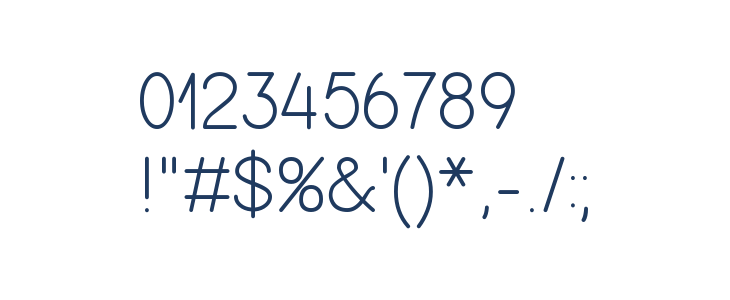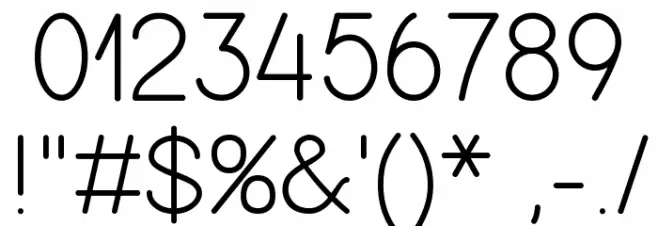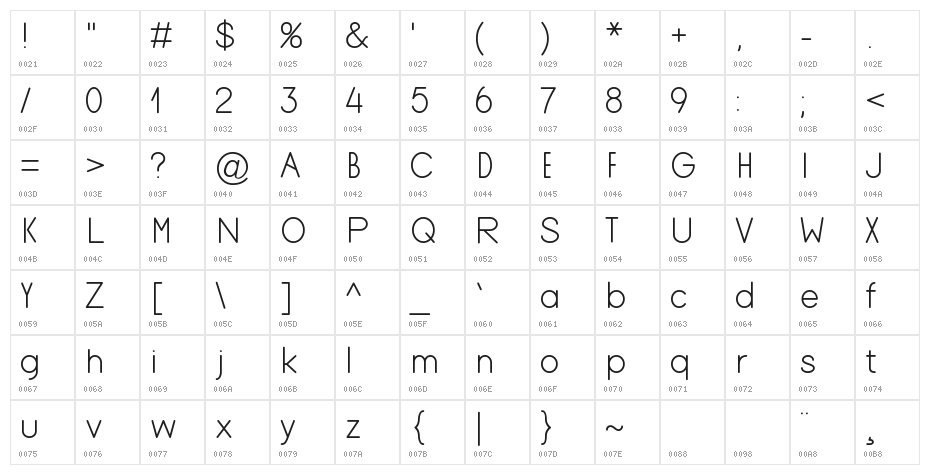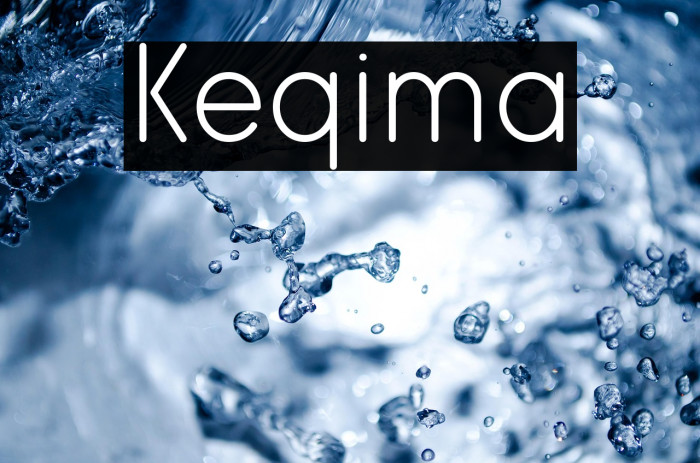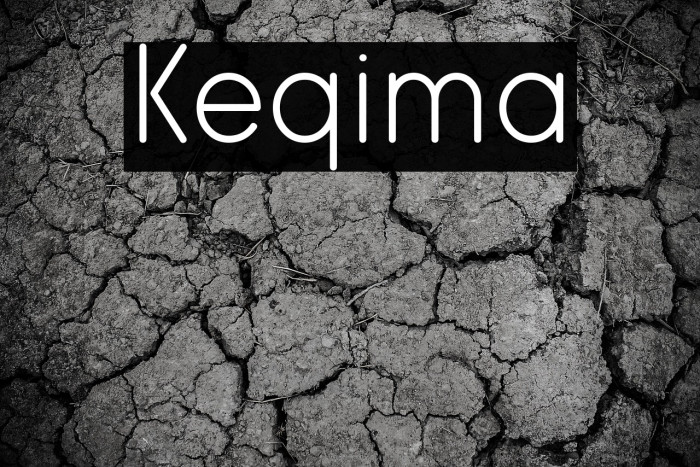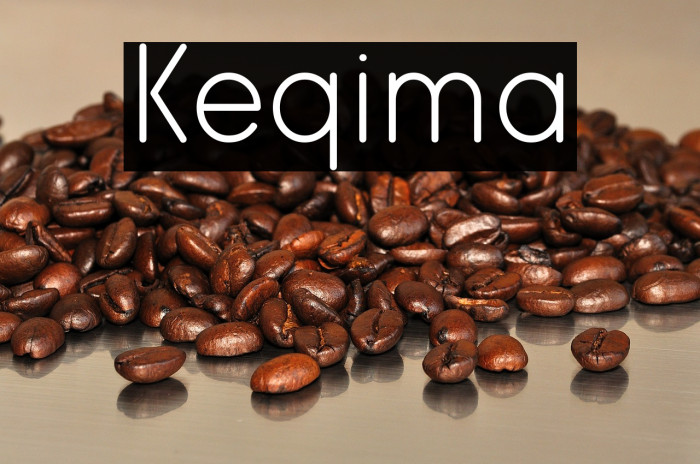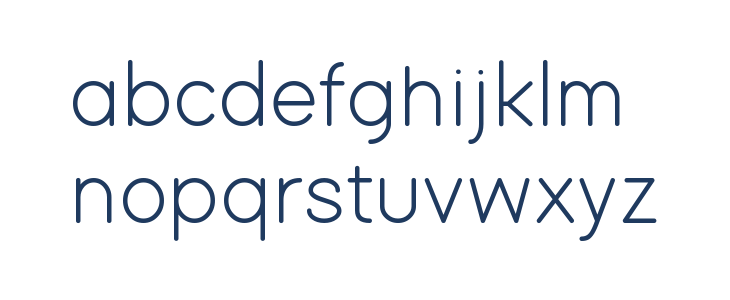
Keqima Font
Keqima Description
This font features a clean and modern sans-serif design with uniform stroke widths and rounded edges, giving it a friendly and approachable appearance. The characters are well-proportioned, with a consistent height and width that enhances readability. The uppercase letters are slightly taller than the lowercase, maintaining a balanced and harmonious look. The numerals are clear and distinct, making them easy to read in various contexts. Special characters are designed with the same attention to detail, ensuring they integrate seamlessly with the rest of the typeface. Overall, this font is versatile and suitable for a wide range of applications.
A modern, rounded sans-serif font with uniform strokes and high readability from Uncategorized fonts.
- Proposed Projects: Ideal for branding, web design, user interfaces, and print materials where a clean and modern look is desired.